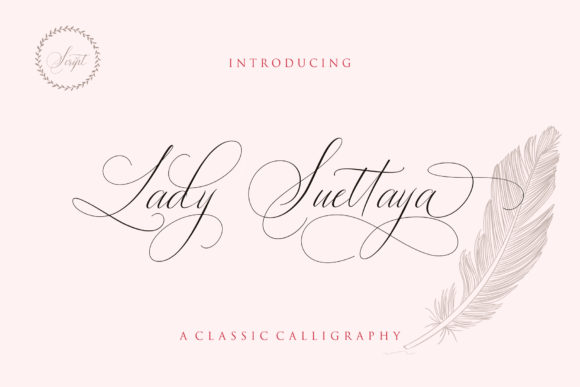
Lady Suettaya Font
Journey to a world of elegance with Lady Suettaya, a script font designed by Sulthan Studio to captivate and inspire. Each letter dances across the page with a stylish grace, reflecting the sophistication of a modern-day princess. Whether you're designing wedding invitations, crafting book covers that whisper secrets, or creating logos that demand attention, Lady Suettaya weaves its magic, adding a touch of luxury to every project.
Beyond its remarkable beauty, Lady Suettaya possesses a versatility that knows no bounds. Its fluid lines lend themselves effortlessly to a variety of creations, from the heartfelt warmth of greeting cards to the professional poise of business cards. Its presence enhances logos, branding, and every design yearning for an air of distinction.
With Lady Suettaya, you're not just downloading a font; you're embracing an experience. Its elegant strokes ignite creativity, transforming ordinary words into captivating expressions that resonate with your audience. Whether you're an artist seeking a muse or an entrepreneur seeking a voice, Lady Suettaya becomes your trusted companion, guiding you to design brilliance.
So, if you desire a font that exudes elegance, possesses versatility like a chameleon, and ignites inspiration like a spark, Lady Suettaya stands ready to elevate your designs to new heights of sophistication. Embrace the exquisite, embrace Lady Suettaya.